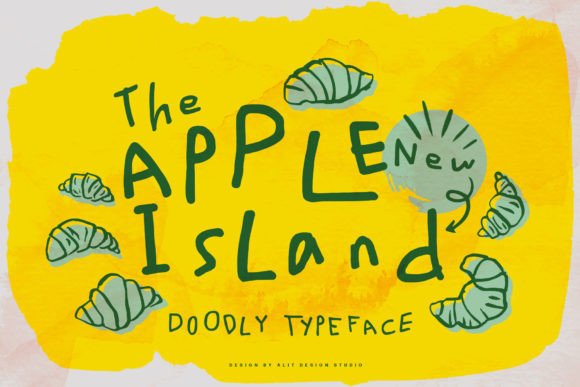
Introducing Apple New Island: The Ultimate Handwritten Sans Serif Font
Are you looking for a font that brings a touch of whimsical elegance to your designs? Look no further than Apple New Island, a charming handwritten sans serif font that is perfect for a wide range of applications. In this article, we’ll explore the unique features of Apple New Island and why it’s the perfect choice for your next design project.
What is Apple New Island?
Apple New Island is a handwritten sans serif font that captures the essence of spontaneity and creativity. It’s a unique blend of casual and sophisticated, making it perfect for personal projects and professional branding. With its naïve yet aesthetic appeal, Apple New Island is sure to add a touch of personality to your designs.
Key Features of Apple New Island
- Handwritten Charm: Apple New Island exudes the authenticity of hand-crafted letters, offering a personal touch that is both engaging and inviting.
- Sans Serif Simplicity: Combining the ease of sans serif readability with the playful nature of handwritten text, this font strikes the perfect balance for any design.
- Aesthetic Appeal: Despite its naïve roots, Apple New Island maintains a stylish and polished look, ensuring your text stands out with a unique flair.
- Versatile Use: Perfect for logos, social media graphics, invitations, stationery, and more, Apple New Island adapts to various creative contexts with ease.
- Unique Personality: Each character is carefully designed to maintain consistency while offering a distinct and quirky personality, making your text lively and memorable.
Why Choose Apple New Island?
Apple New Island isn’t just a font; it’s a statement. Whether you’re looking to add a bit of fun to your branding, make your social media posts pop, or bring a personal touch to your print materials, Apple New Island delivers. Its approachable yet stylish design ensures your message is communicated clearly and with character.
The Benefits of Using Apple New Island
There are many benefits to using Apple New Island in your designs. Here are just a few:
- Personal Touch: Apple New Island adds a personal touch to your designs, making them more engaging and inviting.
- Unique Style: With its unique blend of handwritten and sans serif elements, Apple New Island is sure to make your designs stand out from the crowd.
- Versatility: Apple New Island is perfect for a wide range of applications, from personal projects to professional branding.
- Ease of Use: Apple New Island is easy to use and pairs well with a variety of other fonts and design elements.
How to Use Apple New Island in Your Designs
Using Apple New Island in your designs is easy. Here are a few tips to get you started:
- Pair it with Other Fonts: Apple New Island pairs well with a variety of other fonts and design elements. Try pairing it with a bold sans serif font for a striking contrast.
- Use it for Headings and Titles: Apple New Island is perfect for headings and titles, where its unique personality can really shine.
- Add a Personal Touch: Use Apple New Island to add a personal touch to your designs, making them more engaging and inviting.
In conclusion, Apple New Island is a charming handwritten sans serif font that brings a touch of whimsical elegance to your designs. With its unique blend of casual and sophisticated elements, Apple New Island is perfect for a wide range of applications. Whether you’re looking to add a bit of fun to your branding, make your social media posts pop, or bring a personal touch to your print materials, Apple New Island delivers. Download now and let your words dance off the page!